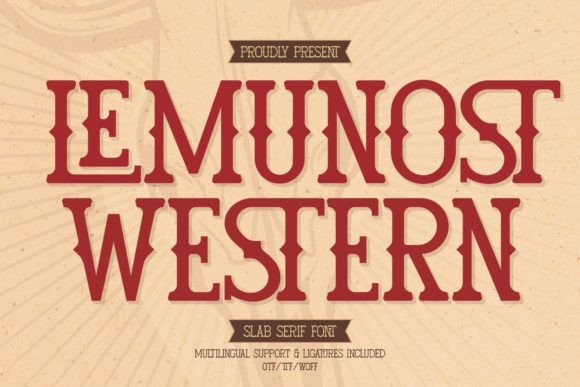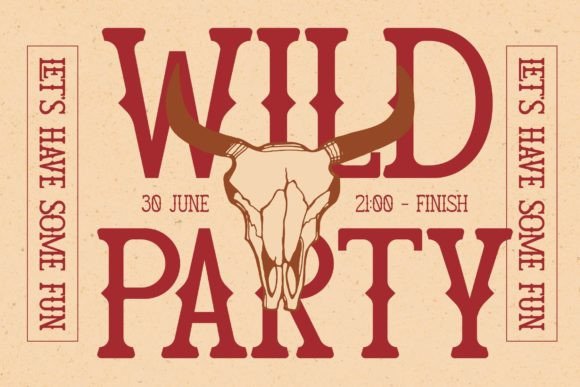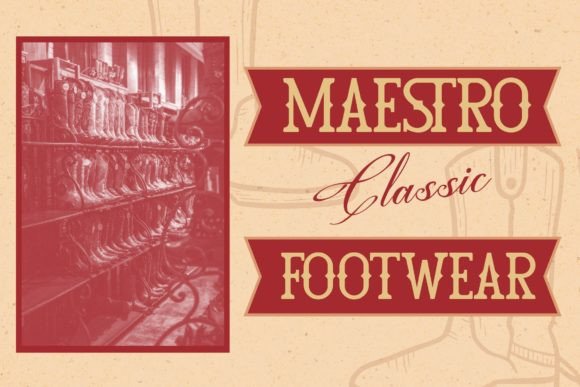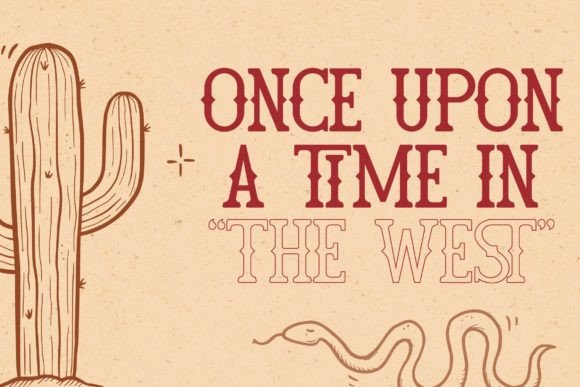
Lemunost Western Font
About the Lemunost Western Font
Introducing the Lemunost Western Font, a beautifully crafted typeface designed to elevate your creative projects. Lemunost Western is a bold, vintage-style font with distinctive thick and thin lines. It’s like a classic cowboy movie title, standing out with its strong and rugged look, perfect for making a bold statement in designs.
Its strong, rugged character makes Lemunost Western ideal for headlines, posters, and branding projects requiring a vintage or Western feel. It excels in short, impactful text applications where its boldness can command attention. Avoid using it for body text or UI elements; the thick strokes compromise readability in smaller sizes or extended passages.
Pair Lemunost Western with a clean sans-serif like Open Sans for a balanced contrast, or a more delicate script font such as Great Vibes for a touch of vintage elegance. A geometric sans-serif could also provide a modern counterpoint, offering a sophisticated juxtaposition to its Western aesthetic.
Lemunost Western projects a bold, confident, and slightly rebellious personality. It’s perfect for brands aiming for a rugged, vintage, or Americana image—think whiskey labels, cowboy gear, or Western-themed events.